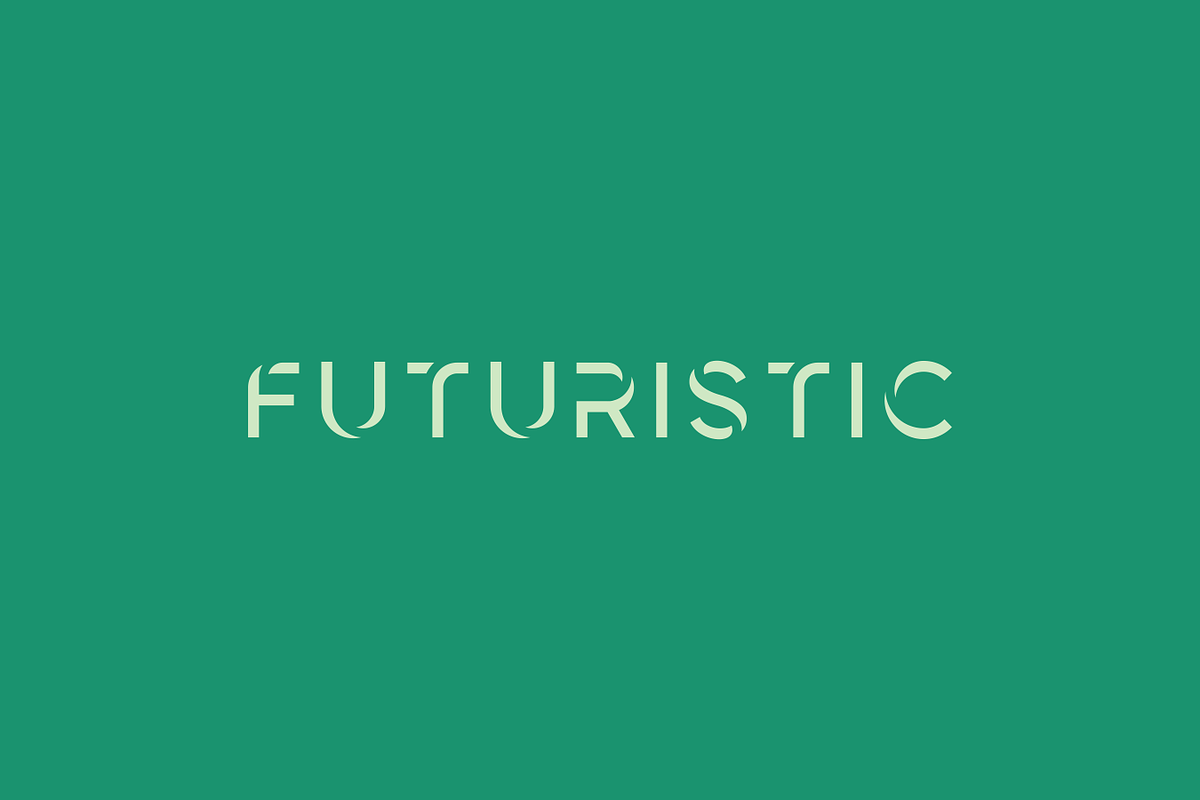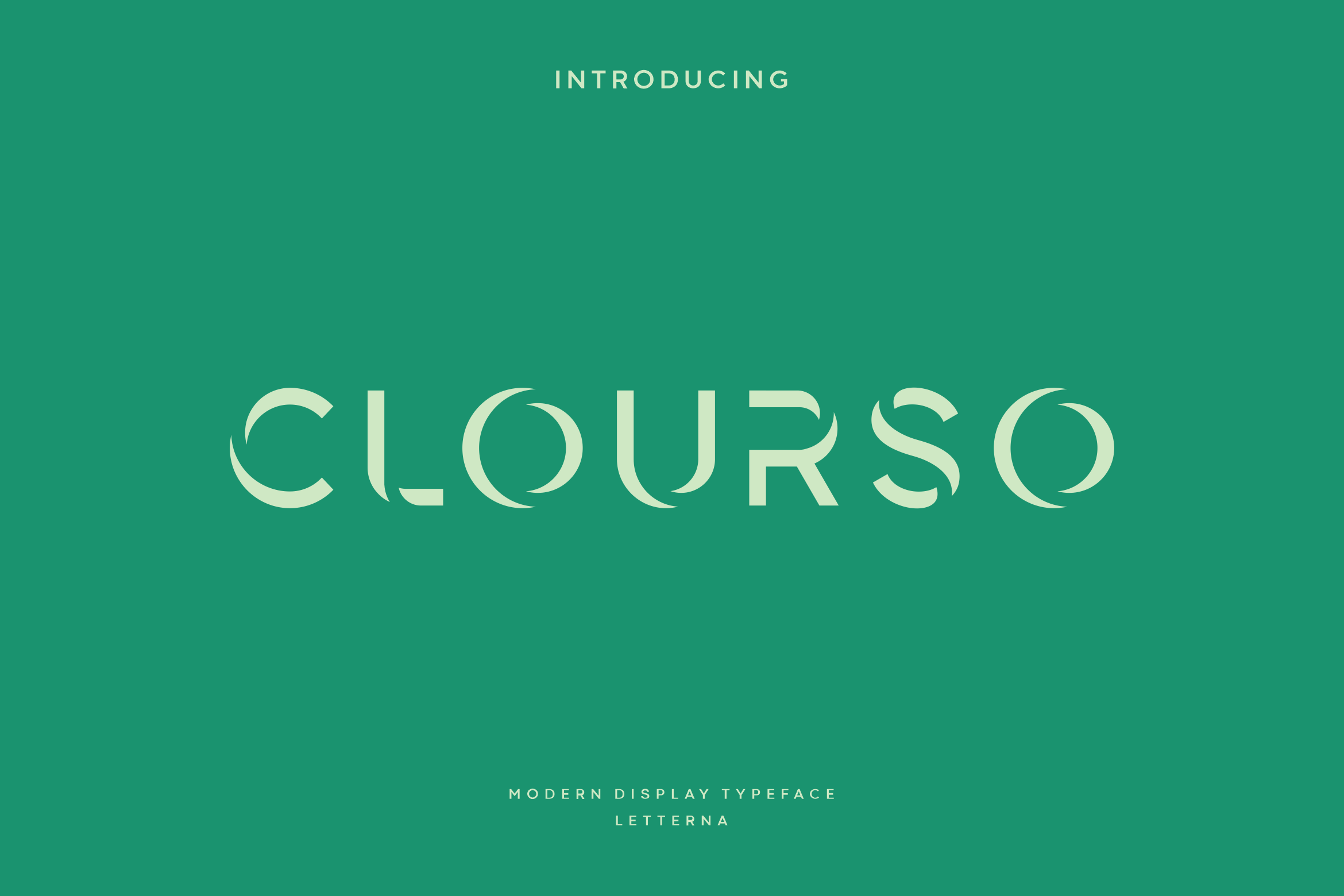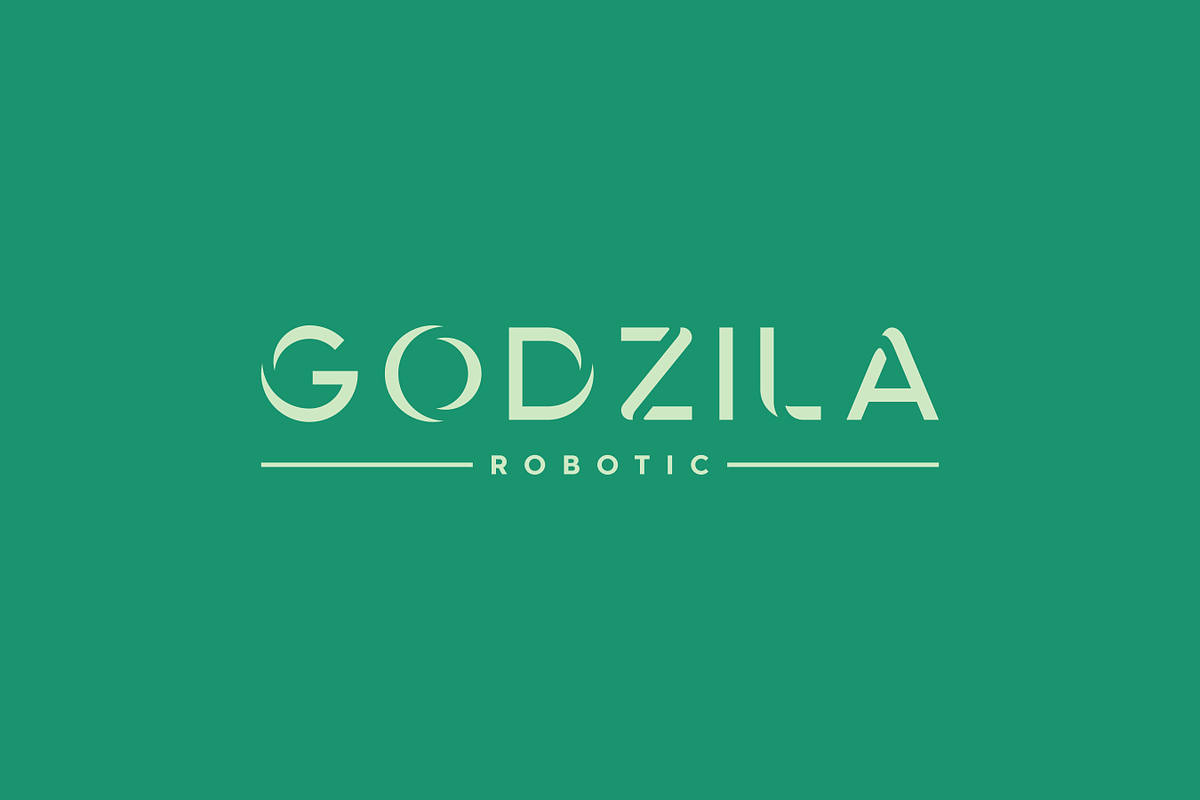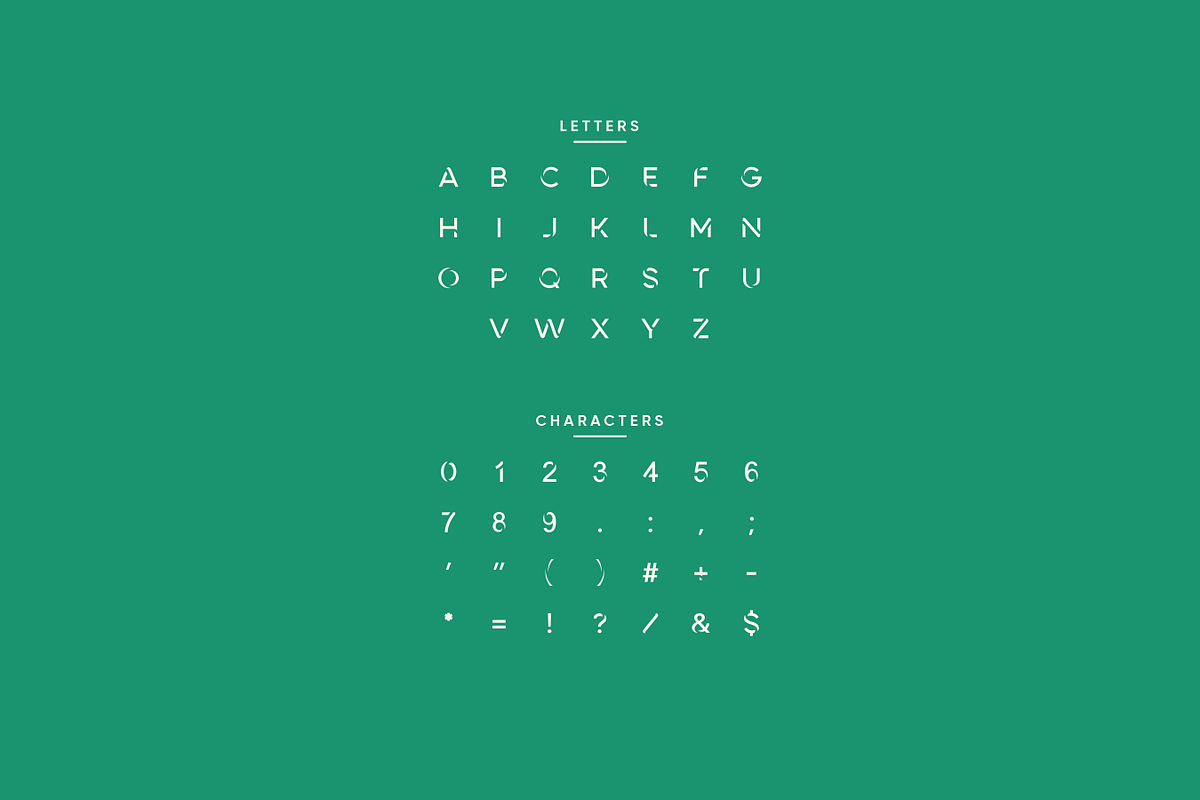
Clourso - Modern Futuristic Typeface
Clourso is a luxury font come in all caps that will make your designs look both futuristic and modern, using a simple design for a clean and elegant look. You can use this font for any purpose, especially for creating future designs. This font is great for logo designs, poster, magazine, headline and many other designs, it is a very sophisticated font so that will make your designs stand out!
- Punctuation & Number